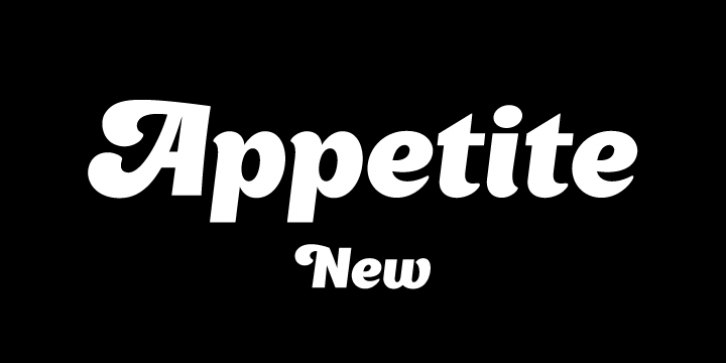
Appetite New was designed by Denis Serebryakov and published by Serebryakov. Appetite New contains 1 style.
A new look of Appetite typeface. Swashed initials, and true italic. Try these tasty letters!